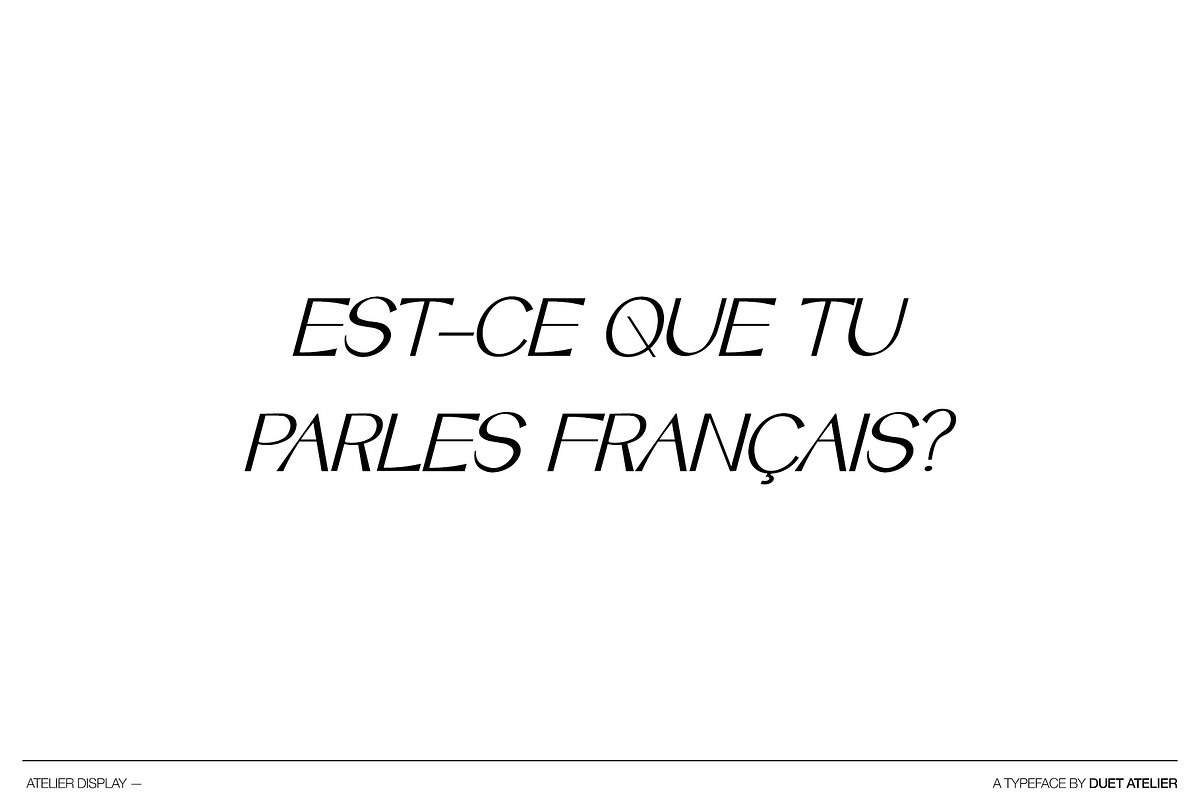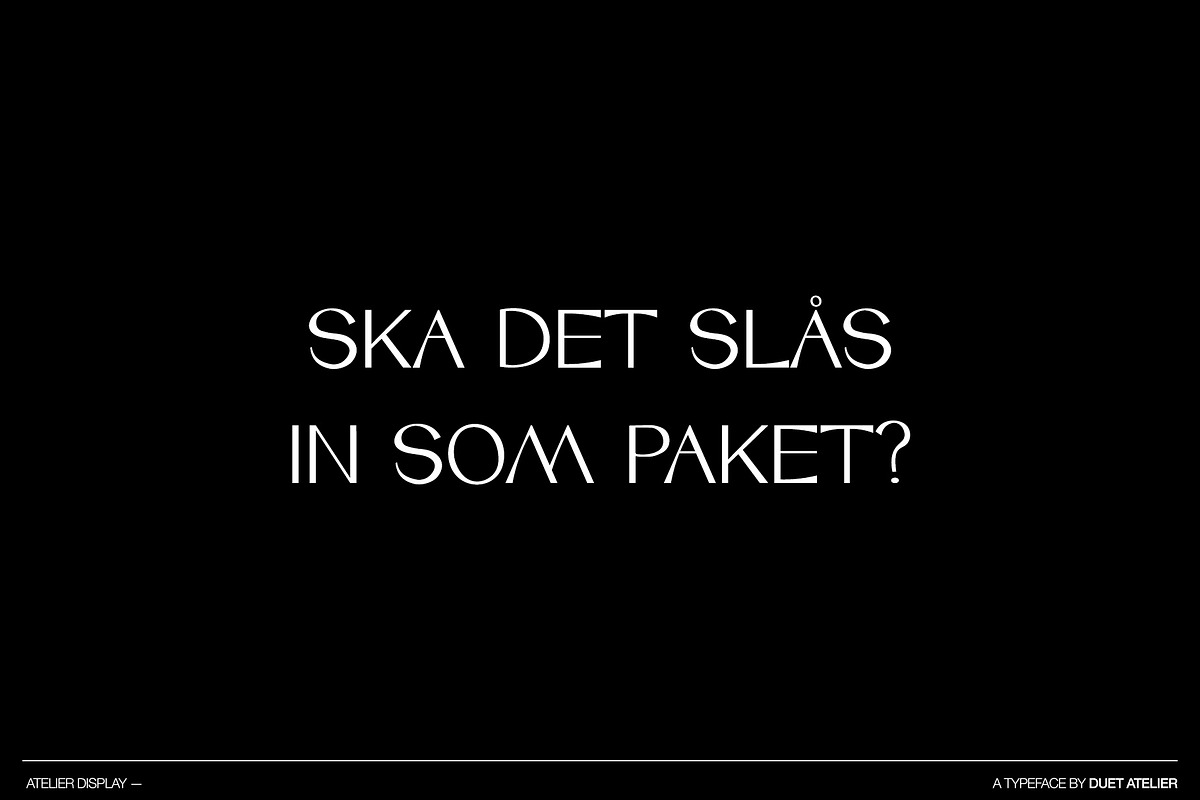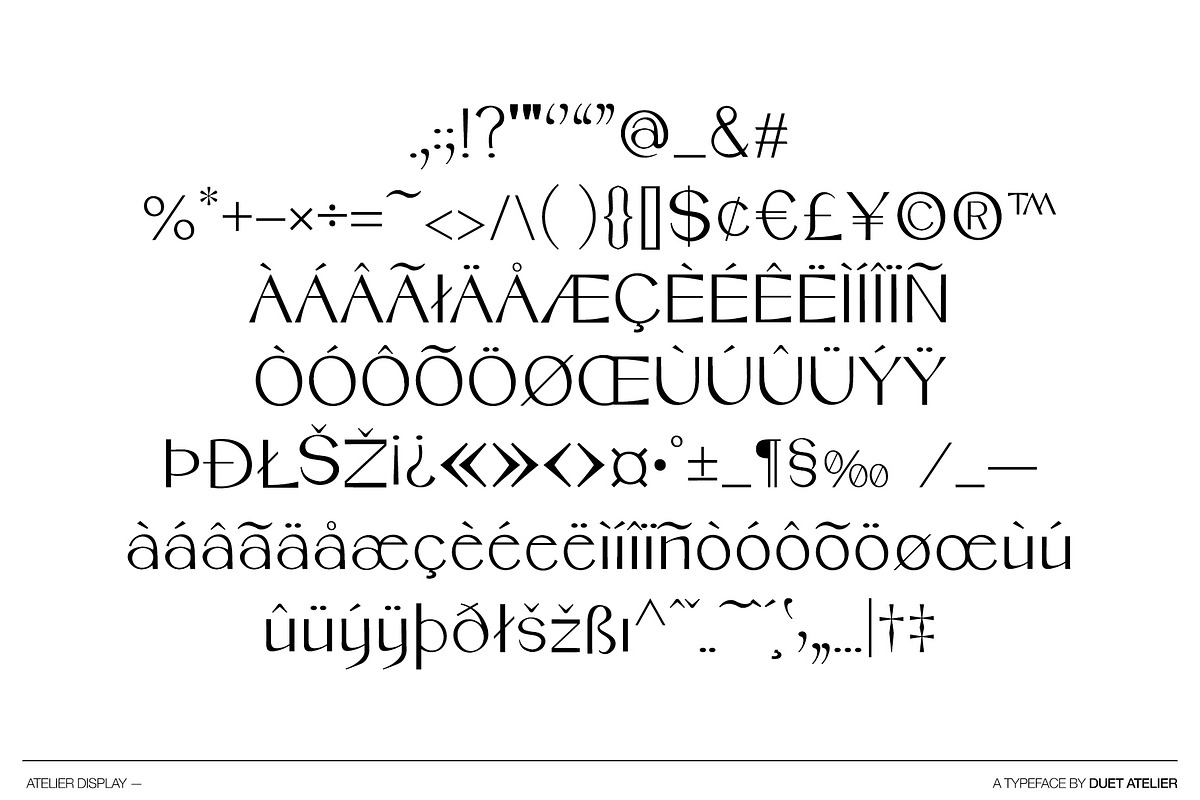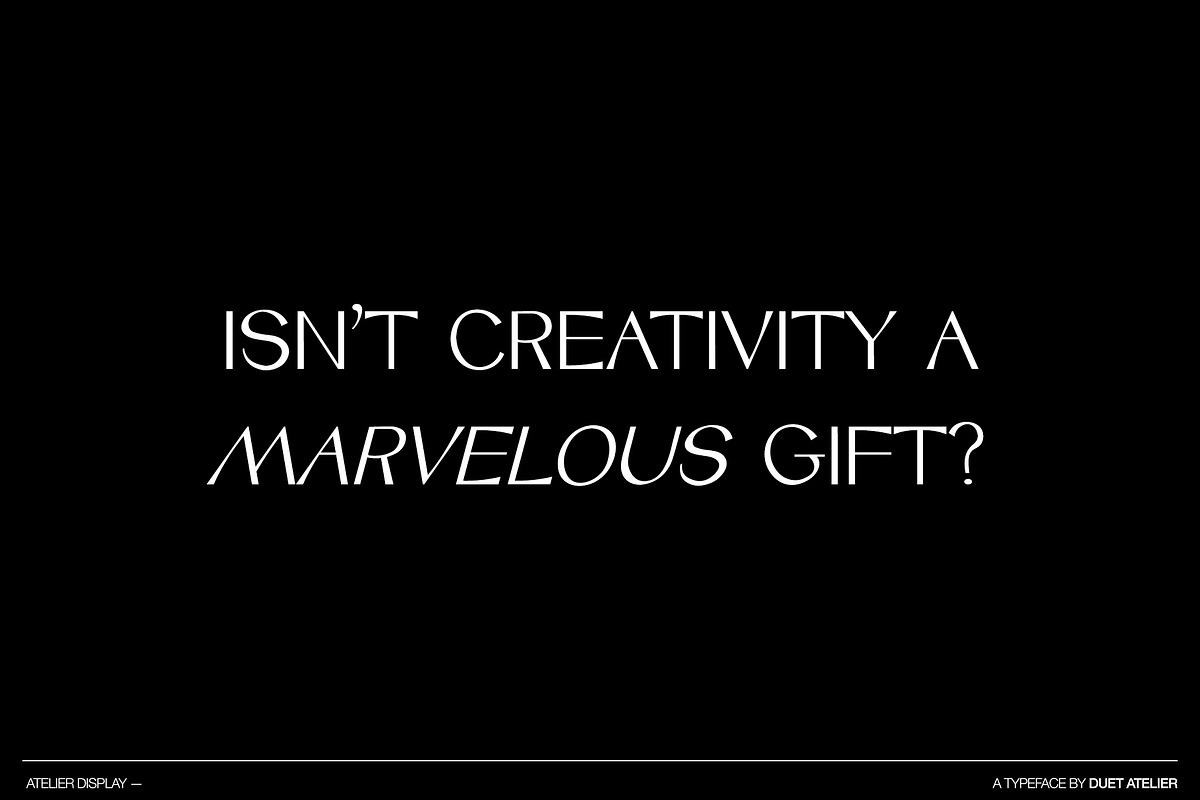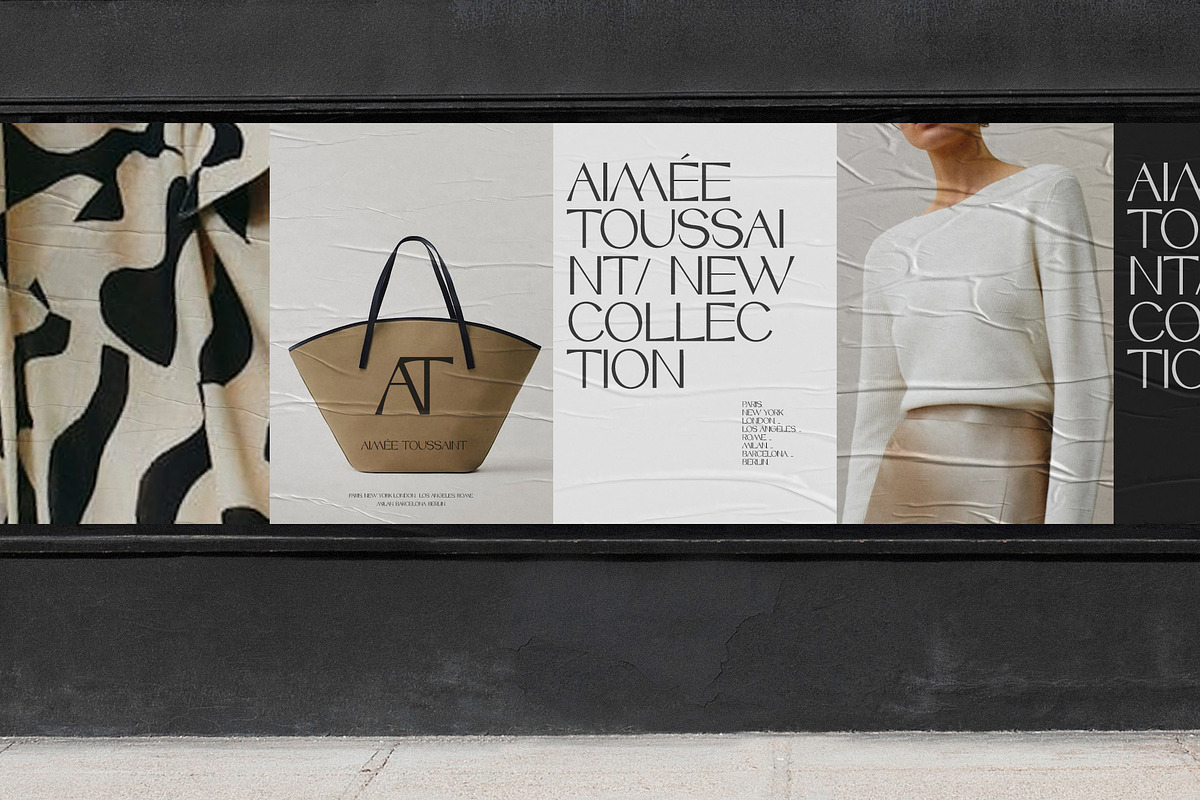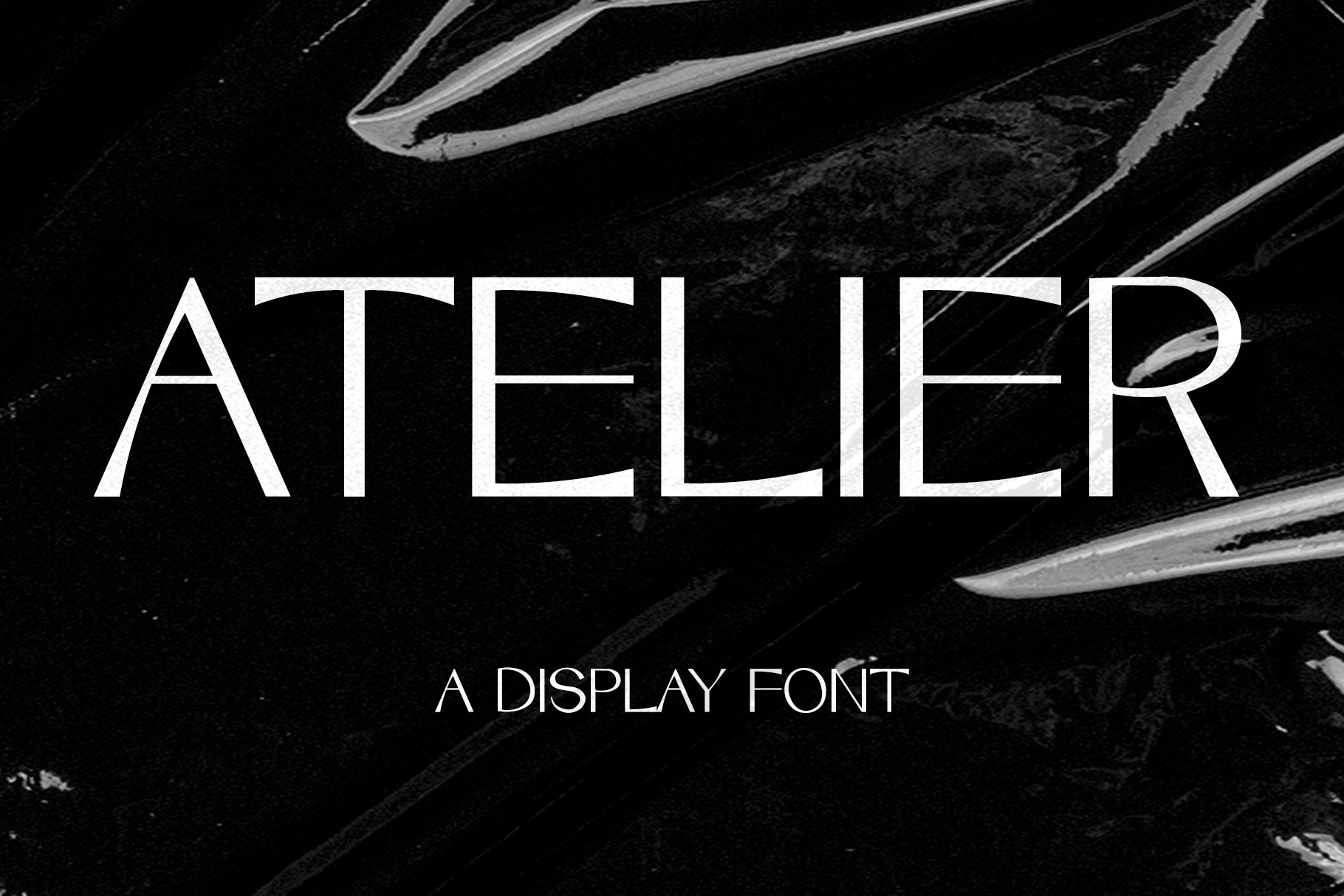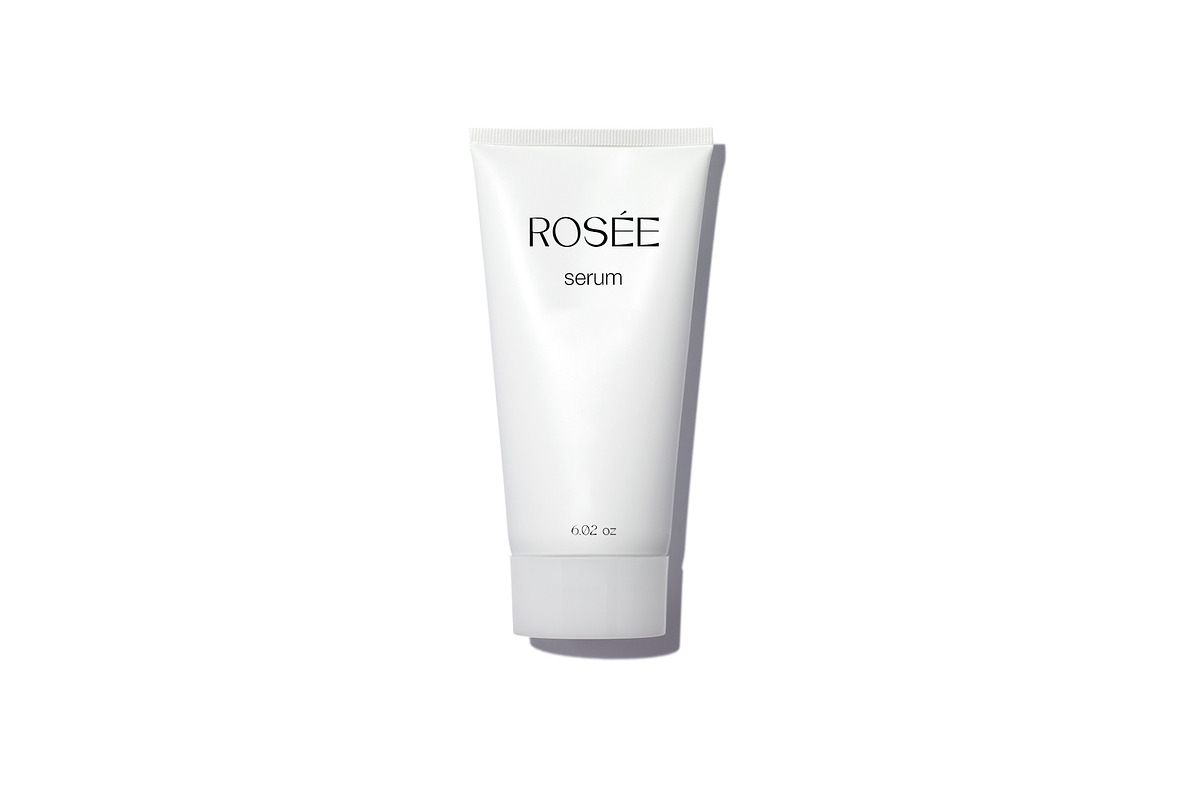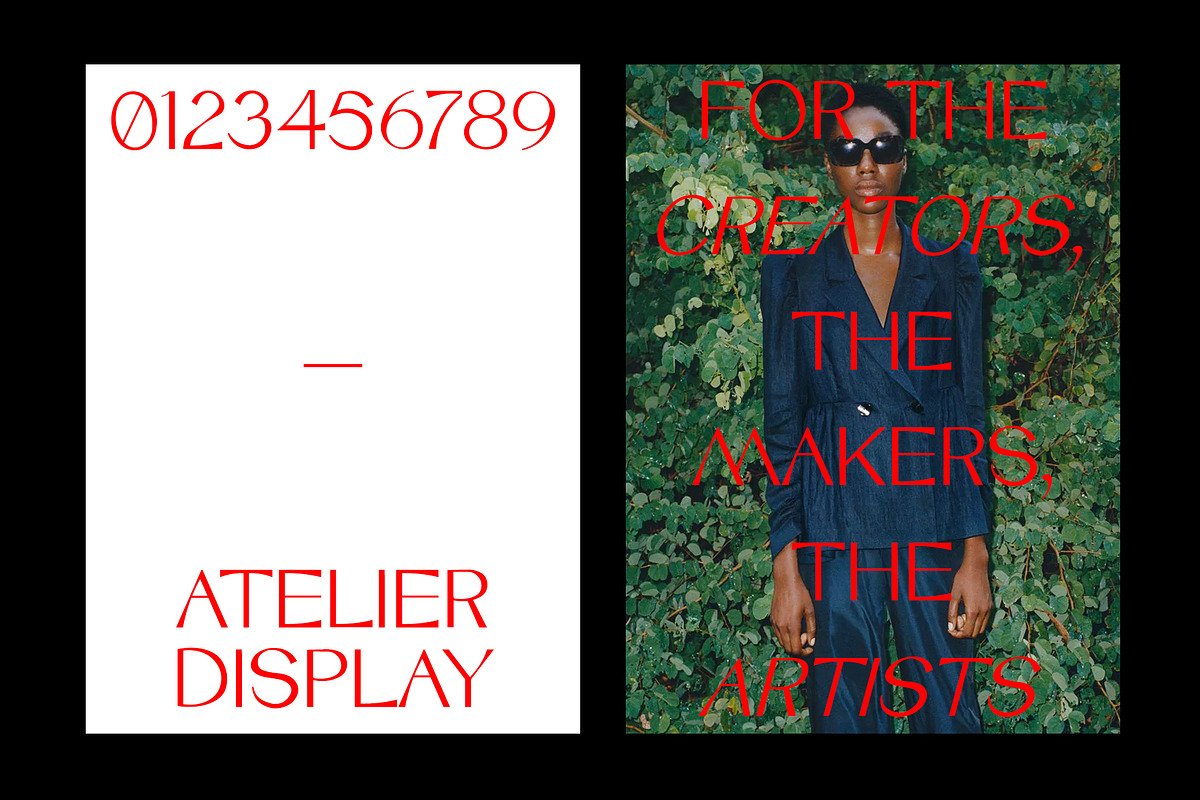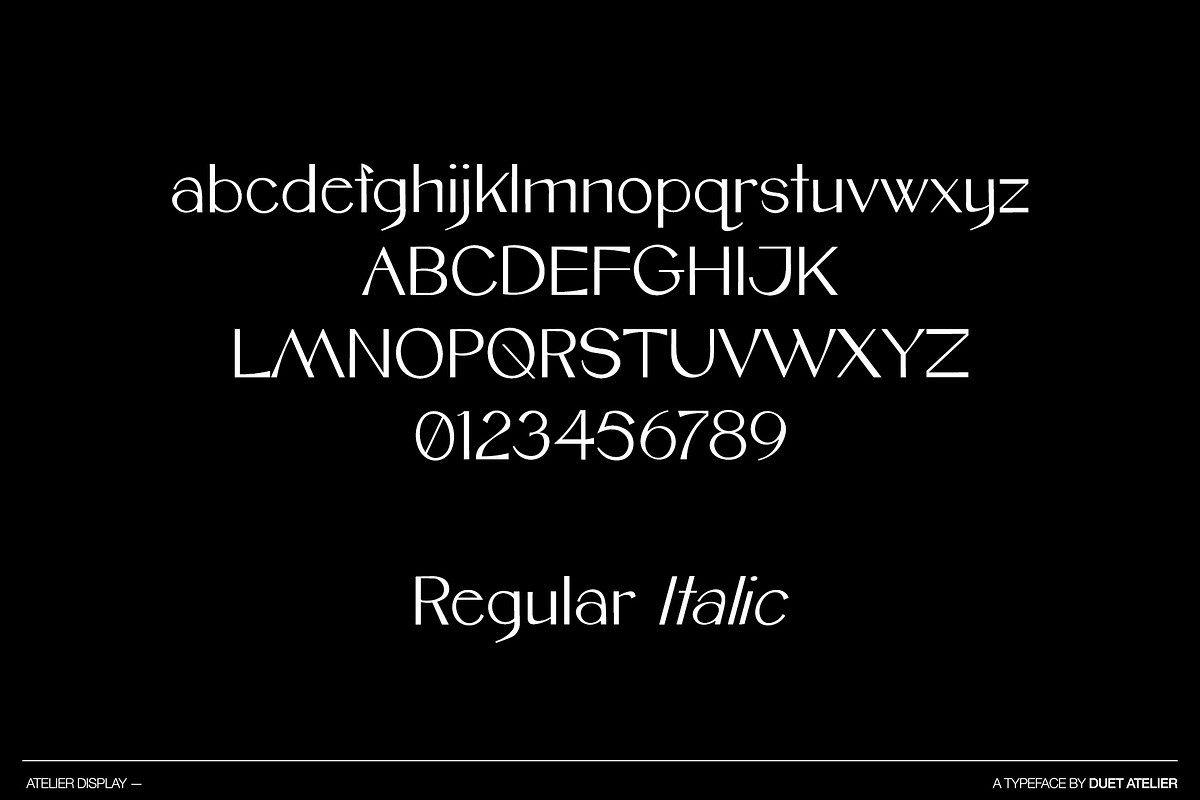
Atelier Display Font
ATELIER DISPLAY
Atelier Display is a new, modern display font inspired by the fashion industry. It's designed to compliment classic sans serif and serif fonts families such as Helvetica and New Times Roman.
The font consists of 211 characters, available in regular and italics, and supports a number of languages such as English, French, Spanish, Italian, Swedish, Norwegian, German, etc.